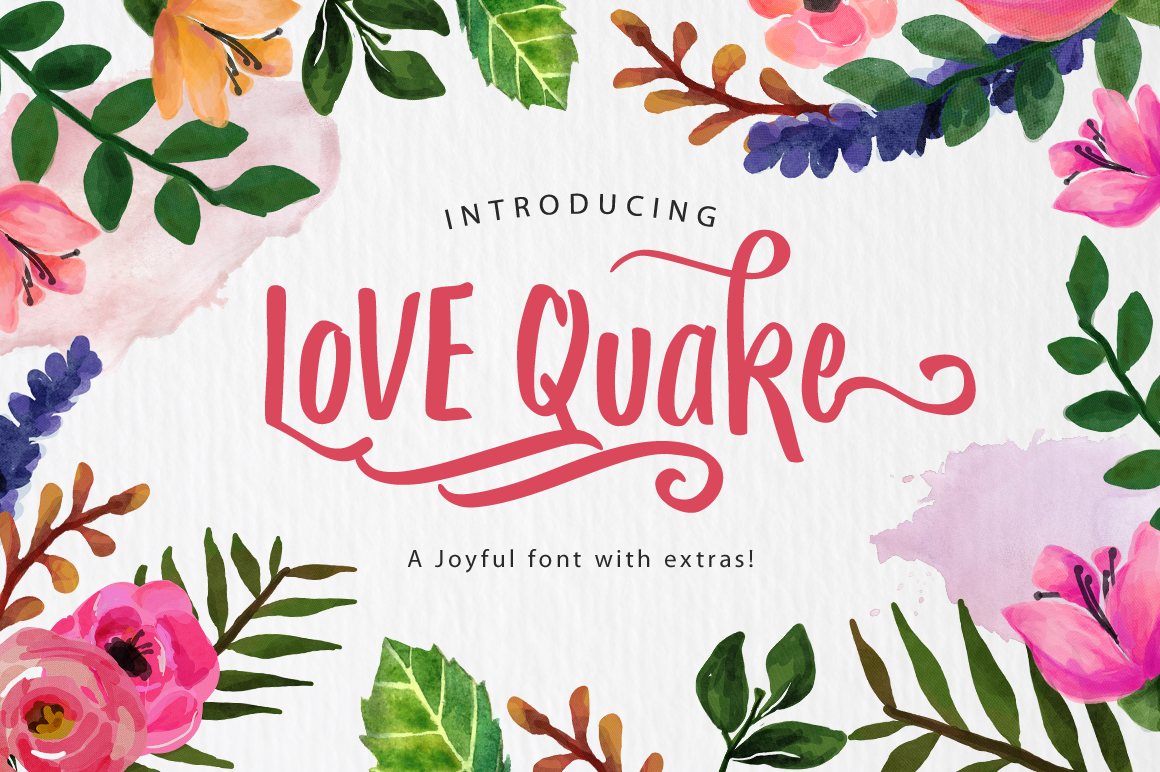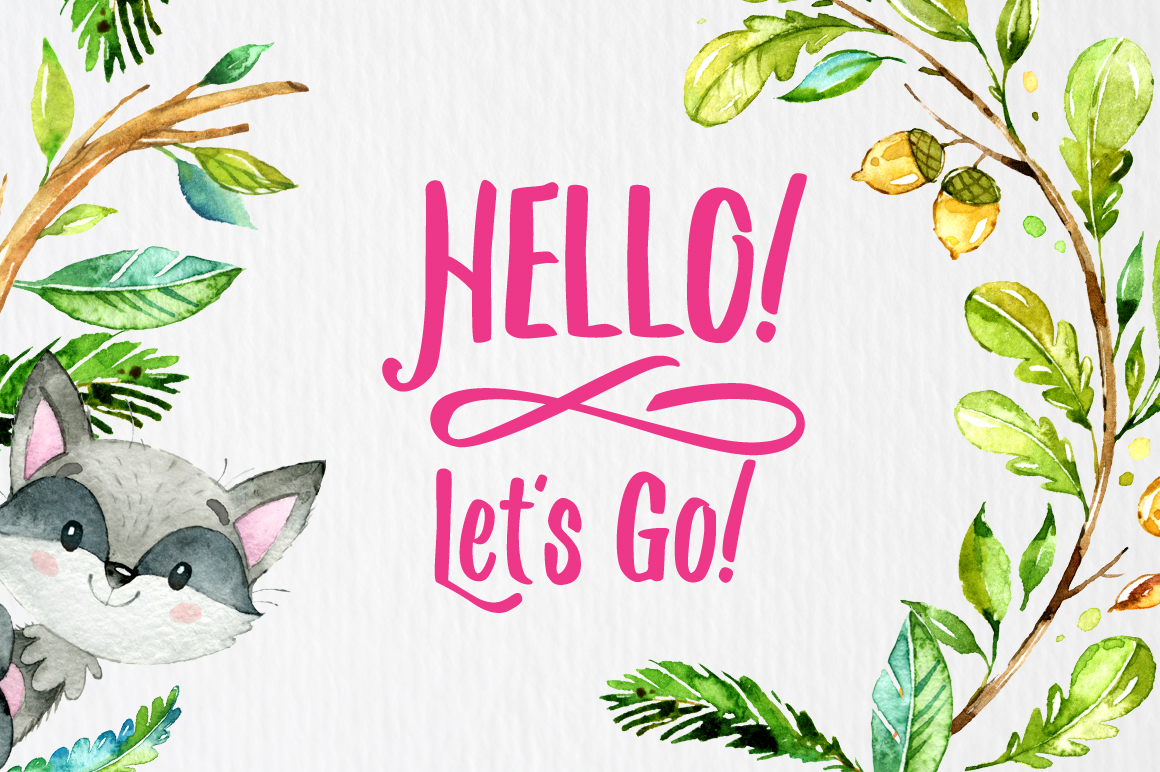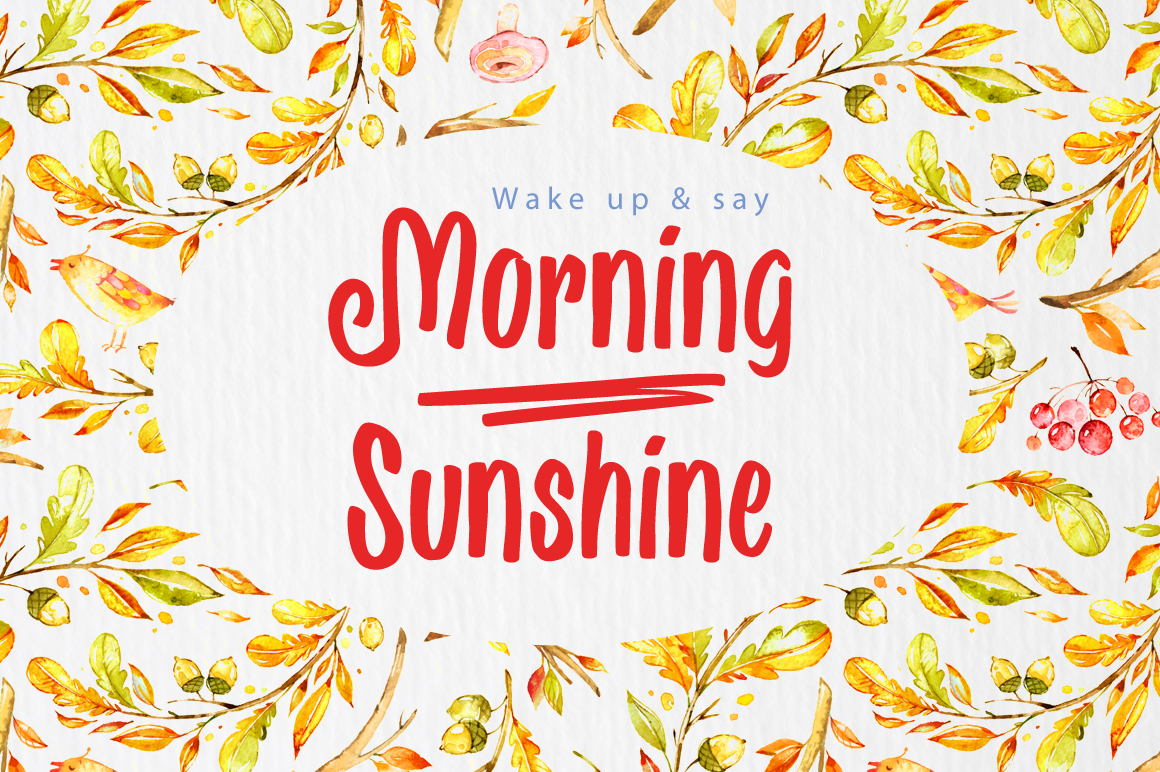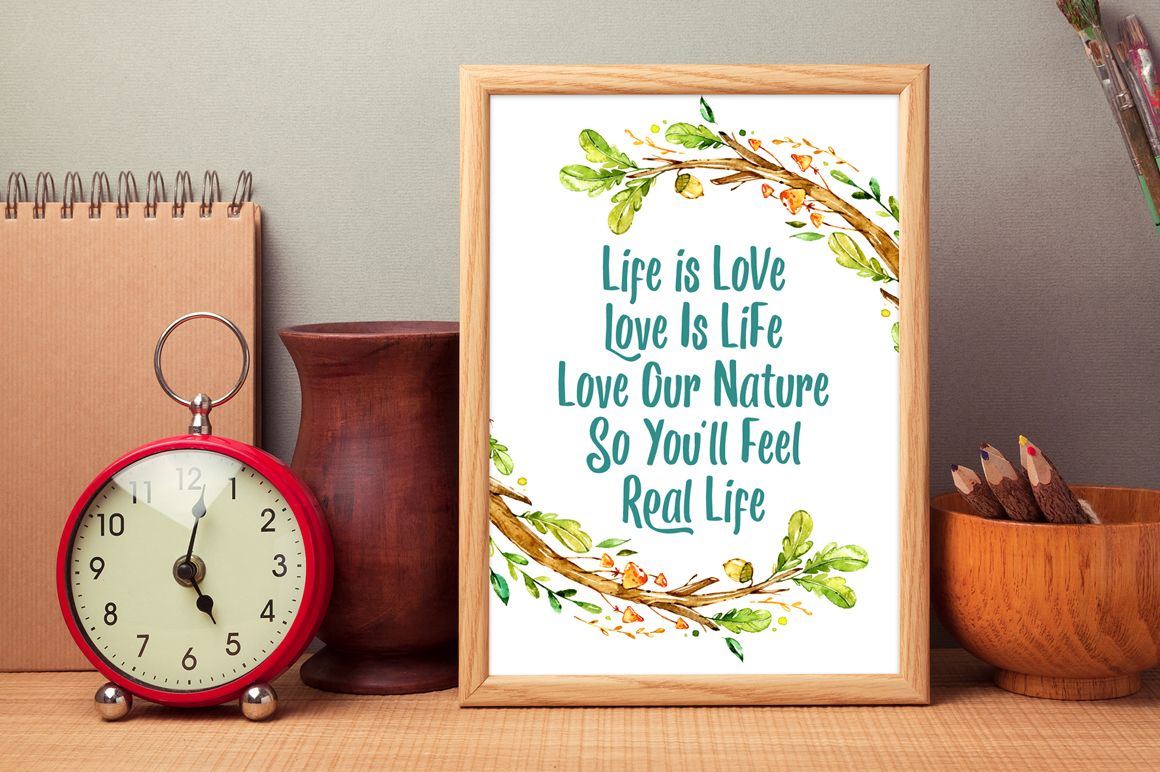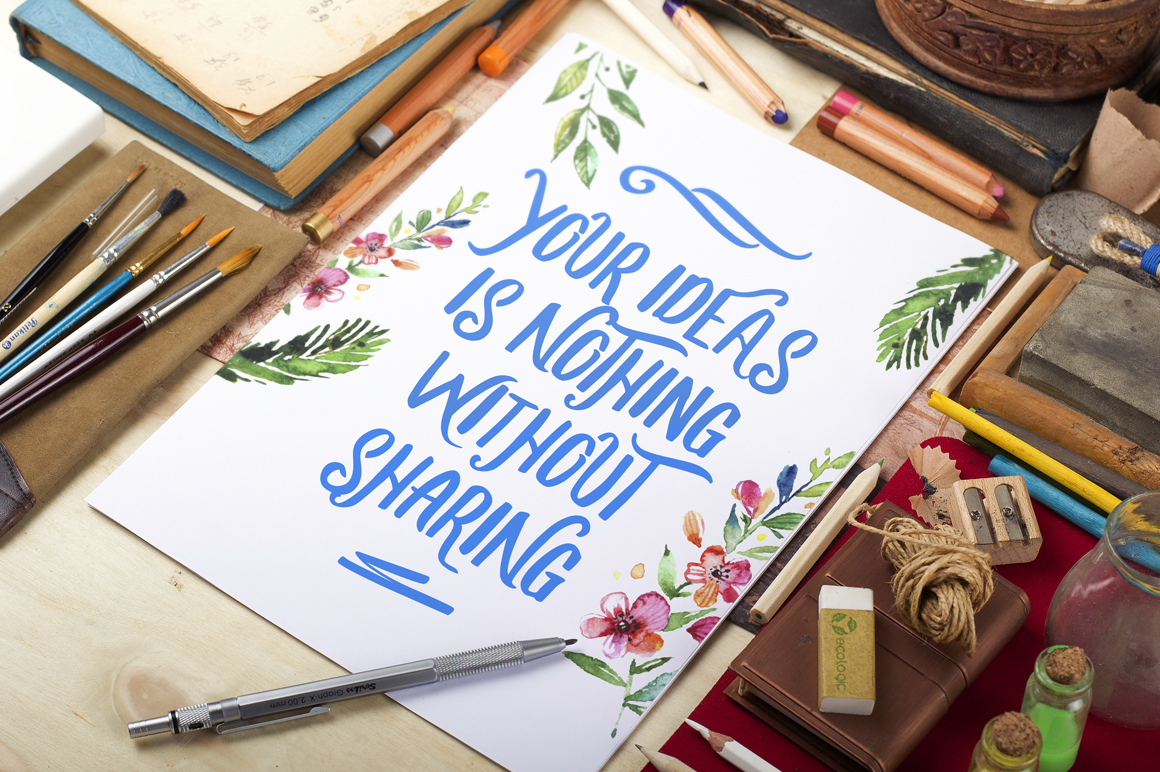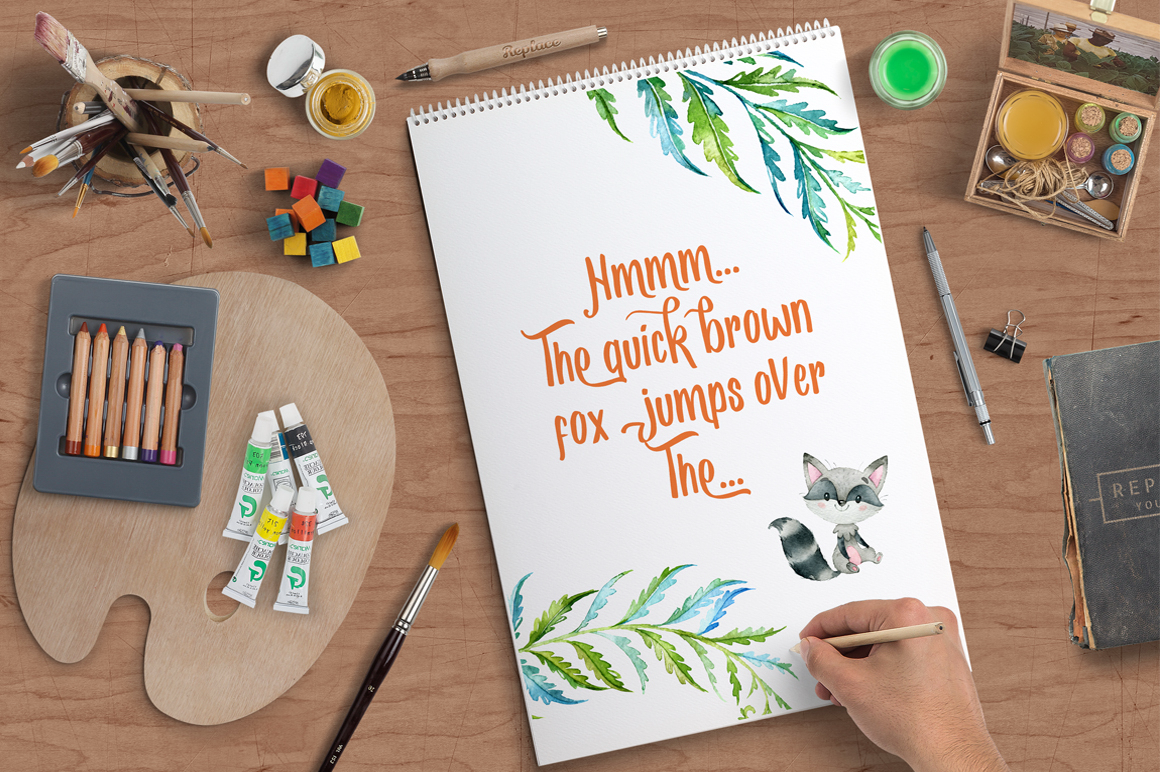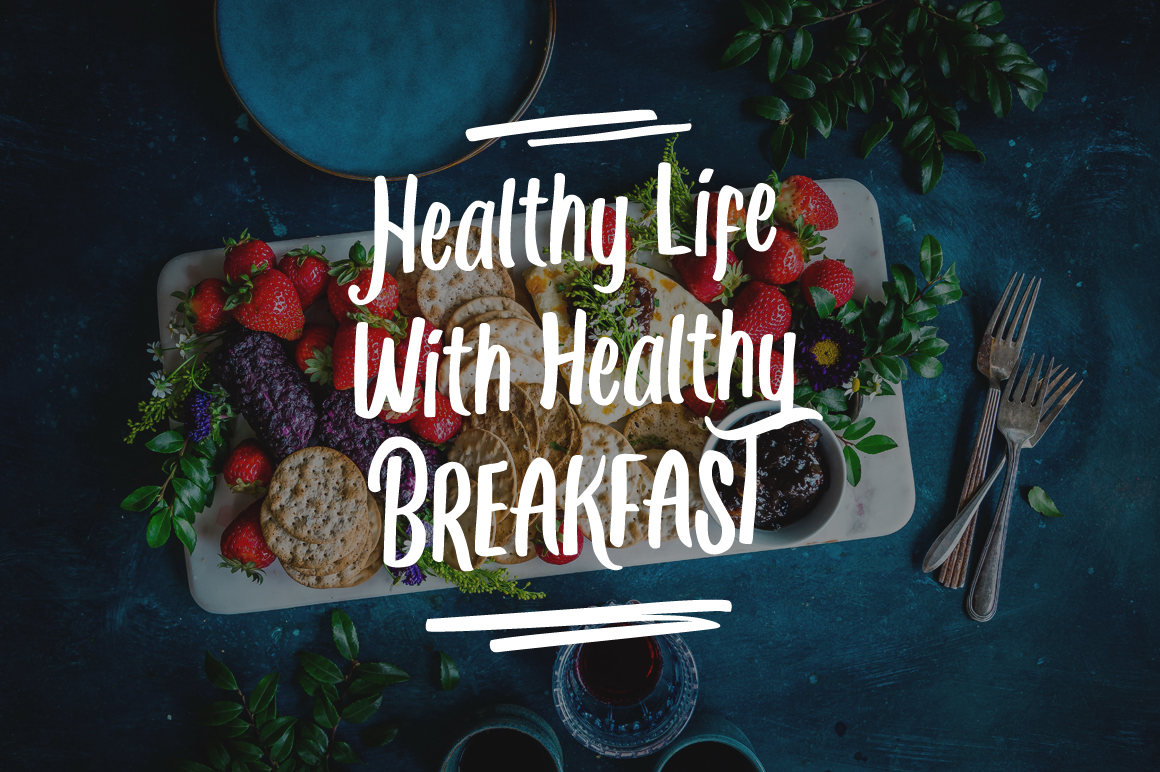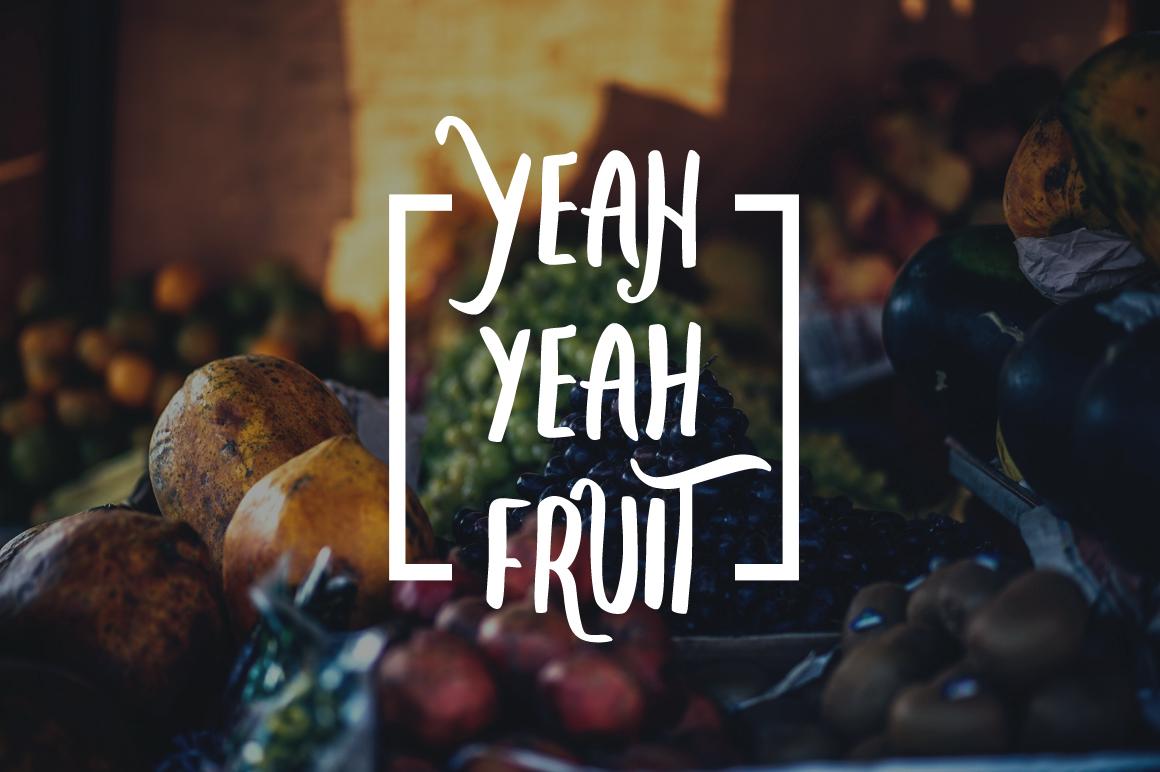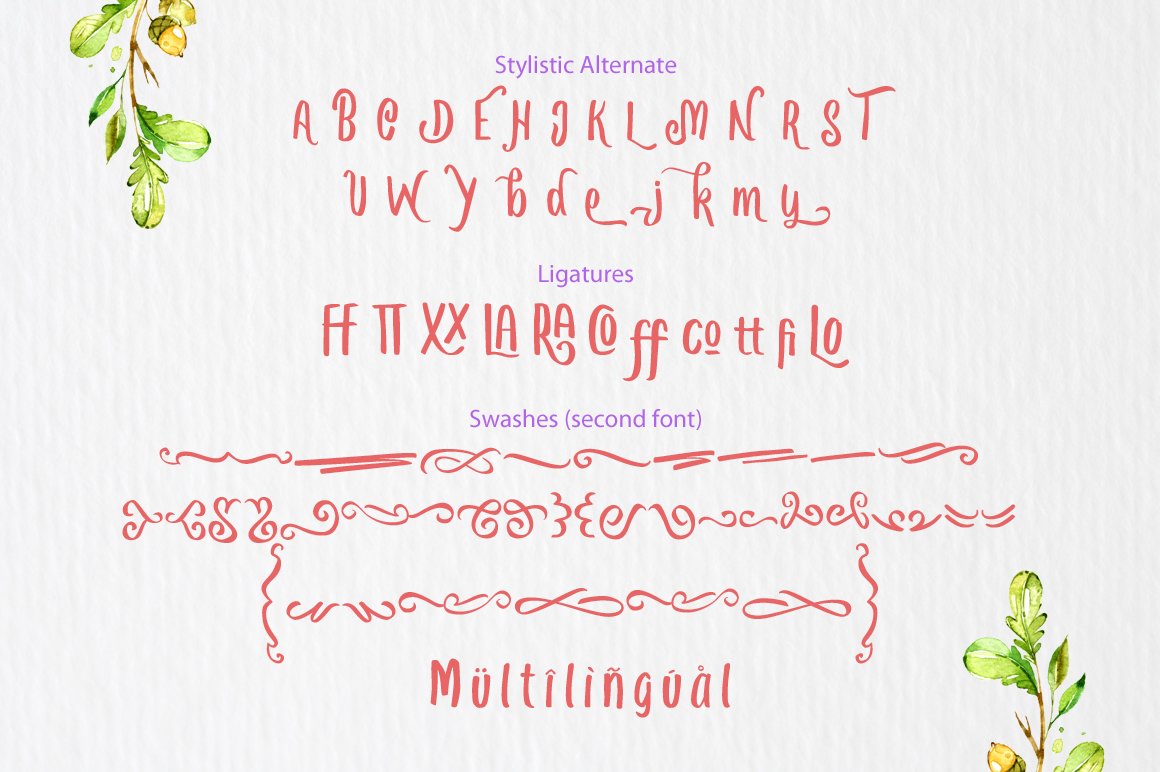
Love Quake Font
About Love Quake Font
Love Quake is 100% hand traced, inspired by the arts & crafts movement and watercolor. The joyful brush lettering with extra swashes is perfect for lighthearted a springy designs.